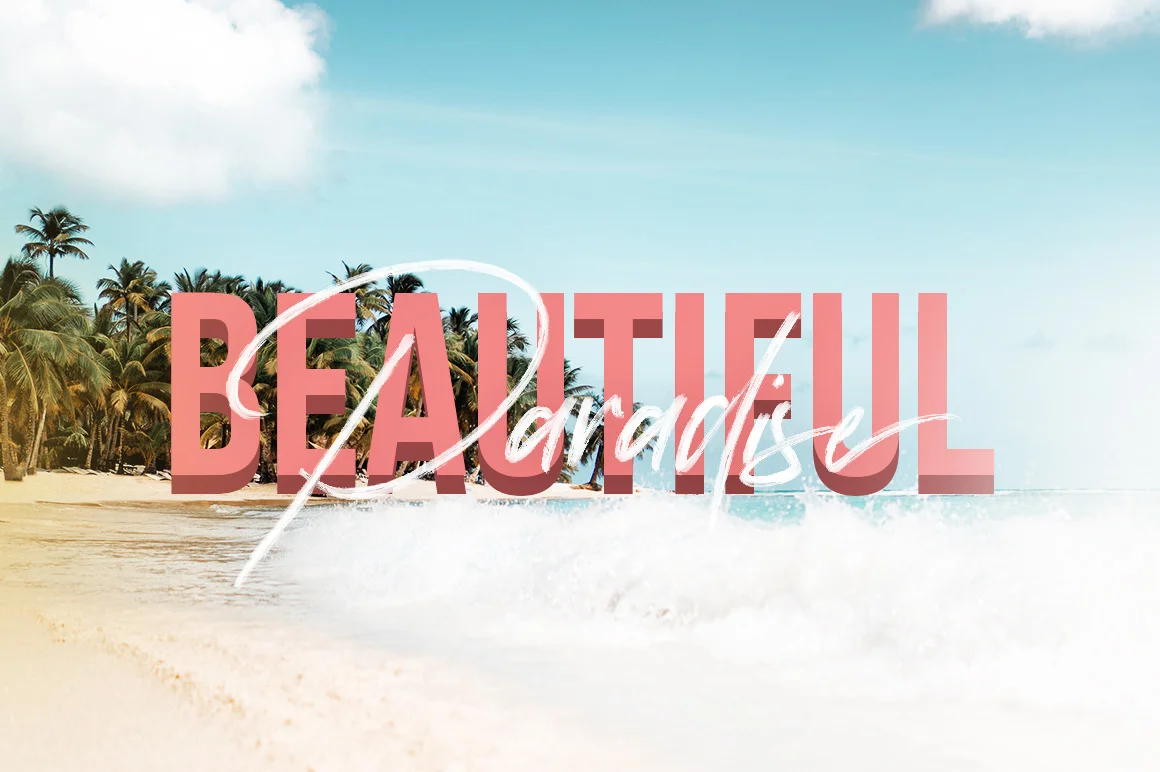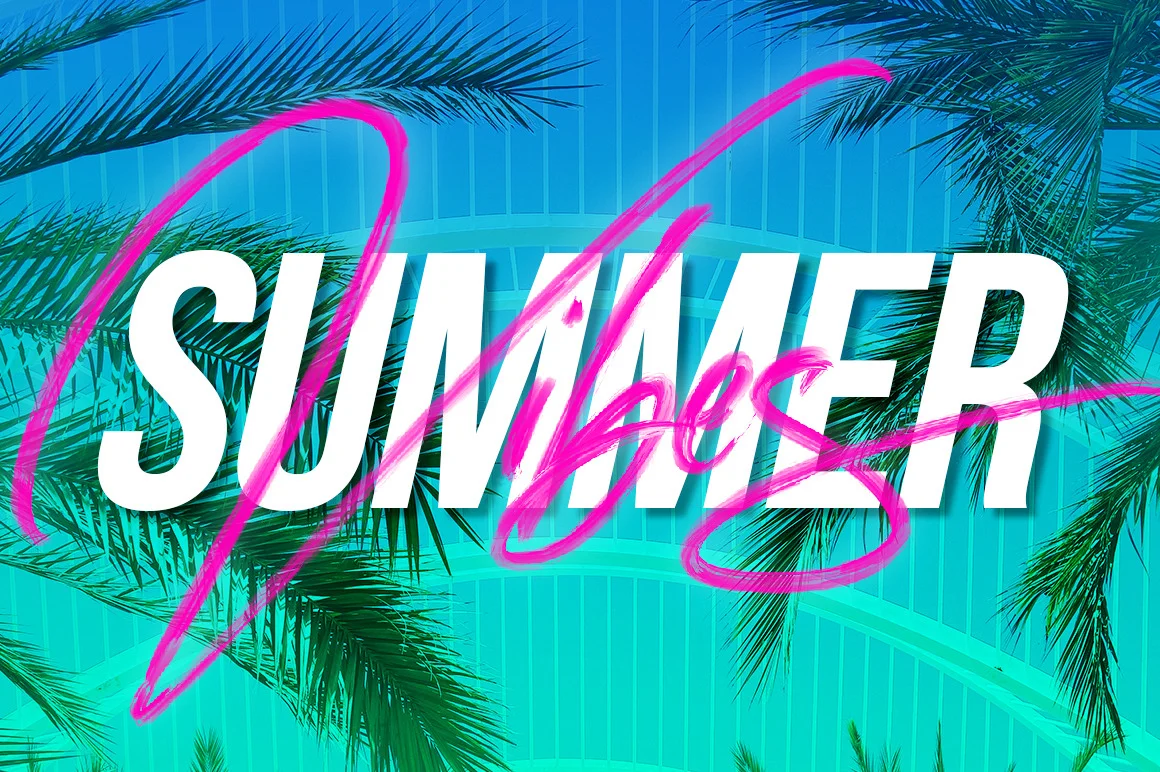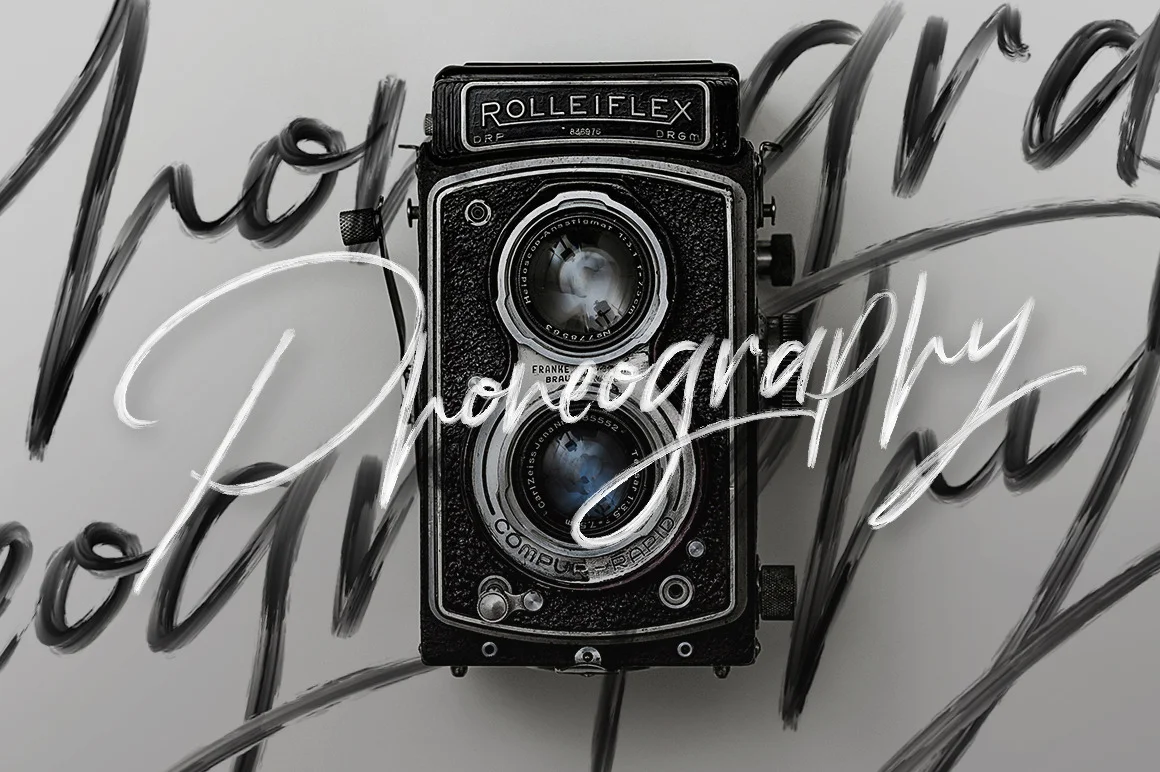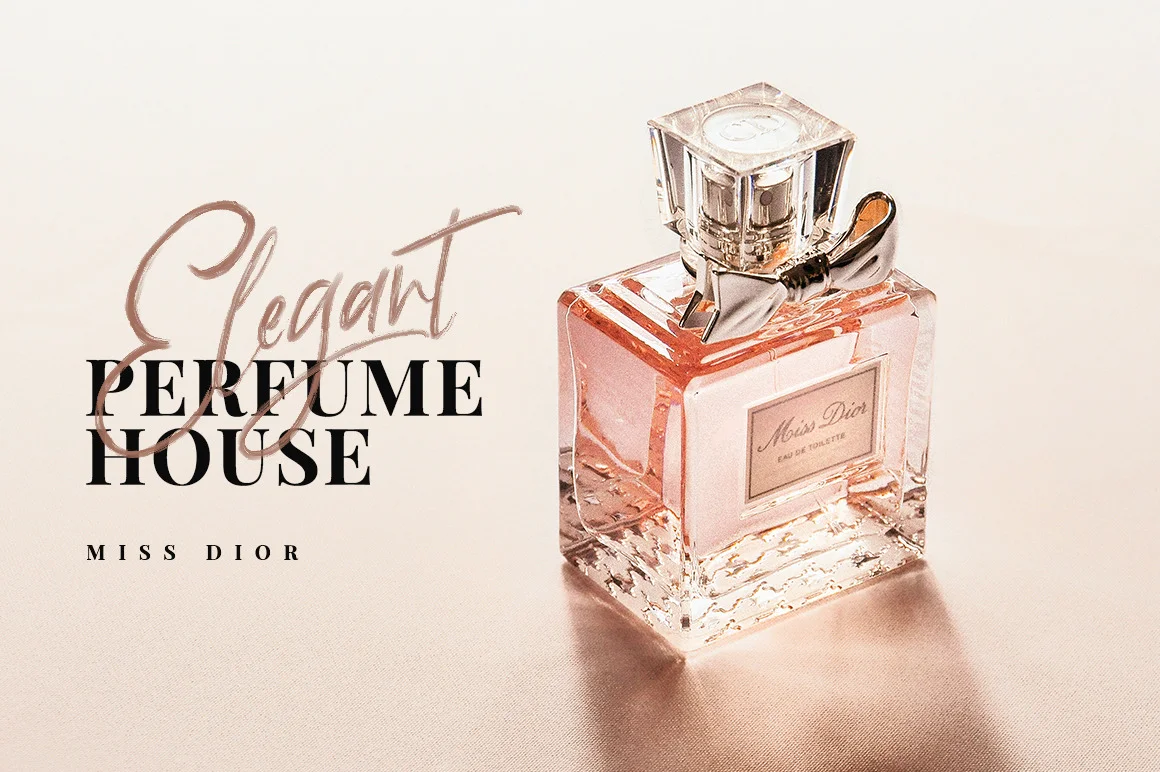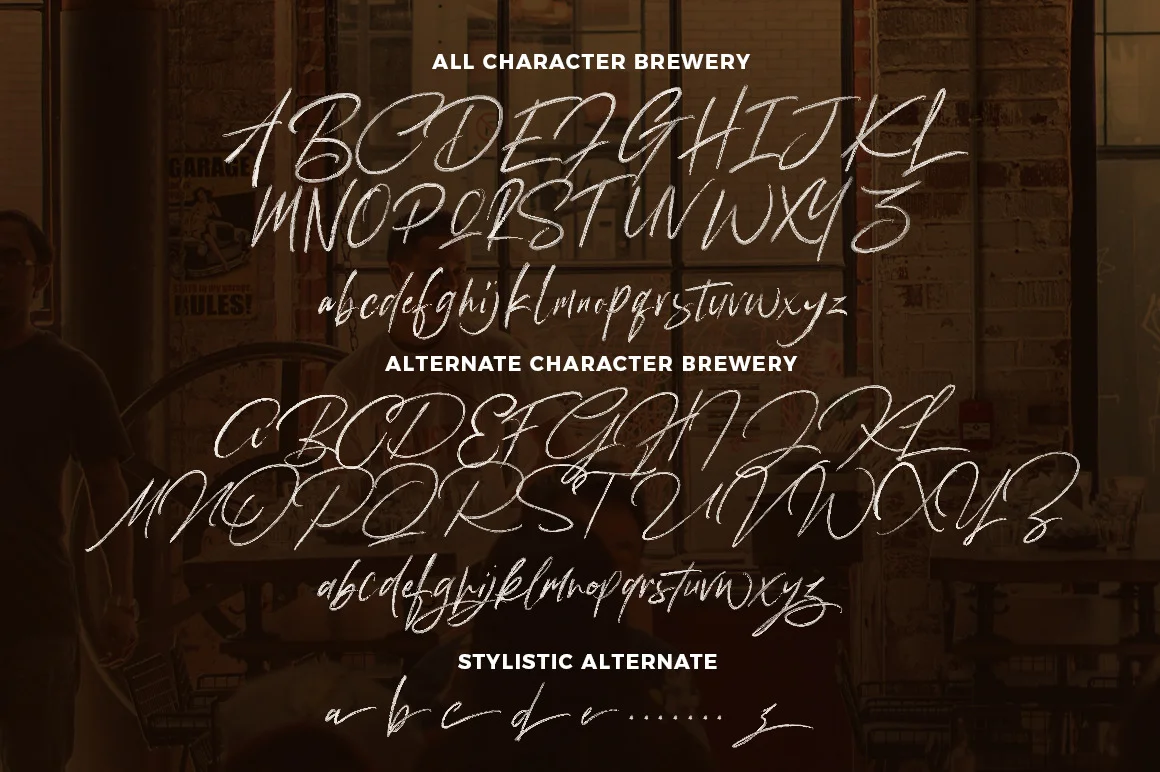
Brewery - SVG FONT
The Brewery - SVG FONT is a truly unique and modern typeface that captures the authentic, hand-painted look of a wet brush. Utilizing the power of SVG font technology, it retains the high-definition texture and transparency of a real brush stroke, making it perfect for projects that require a genuine, handcrafted feel. This font is an excellent choice for a variety of creative applications, including signature logos, handwritten quotes, product packaging, posters, and merchandise. Its raw, artistic style is also perfect for social media graphics and greeting cards where you want to add a personal, human touch.
What makes the Brewery - SVG FONT so exciting is its incredible realism. Traditional fonts are vectors, but this font captures the rich, textured details of a real brush, with all the imperfections and beautiful transparencies. This isn't just a font; it's a piece of digital art that brings a sense of authenticity and warmth to your designs. The high-quality detail ensures that your text will look like it was personally painted by hand, making it a powerful tool for creating memorable and emotionally engaging visual experiences.
The Brewery font family is designed for maximum versatility, providing both the SVG version for high-definition texture and a vector brush version for older software compatibility. This comprehensive family includes a full set of uppercase and lowercase letters, numbers, and punctuation. The font also includes stylistic alternates, allowing you to customize your text and enhance its handwritten appearance.